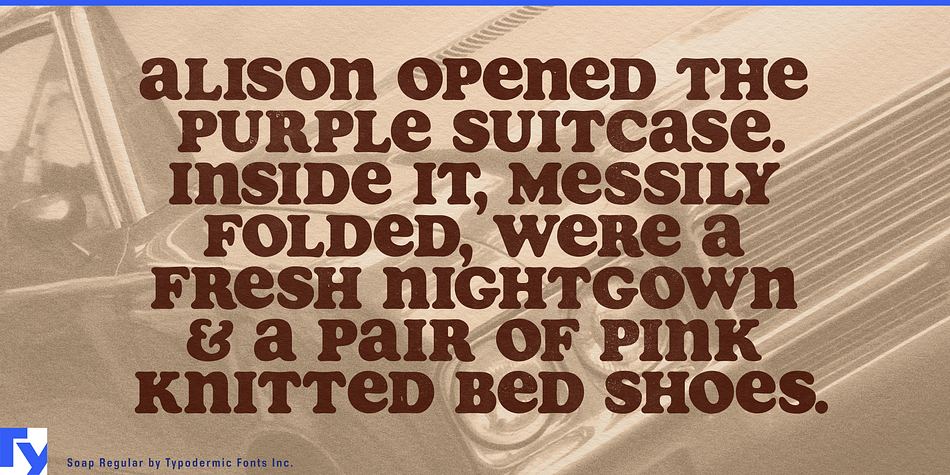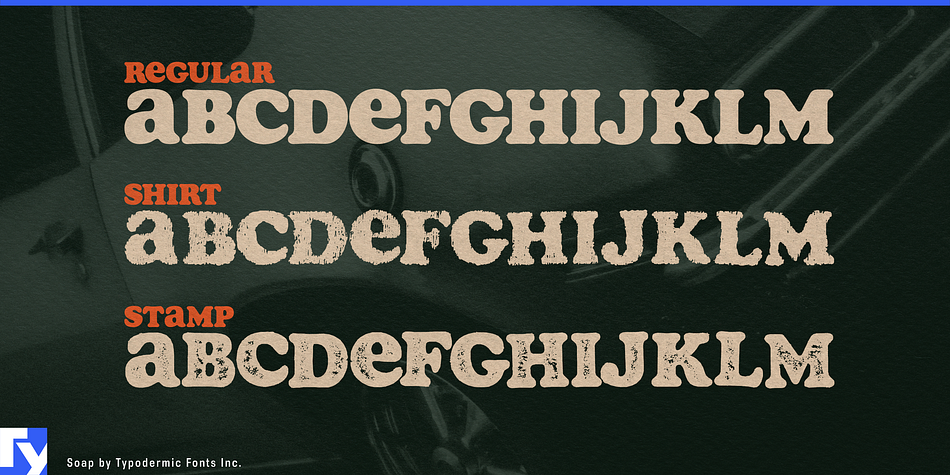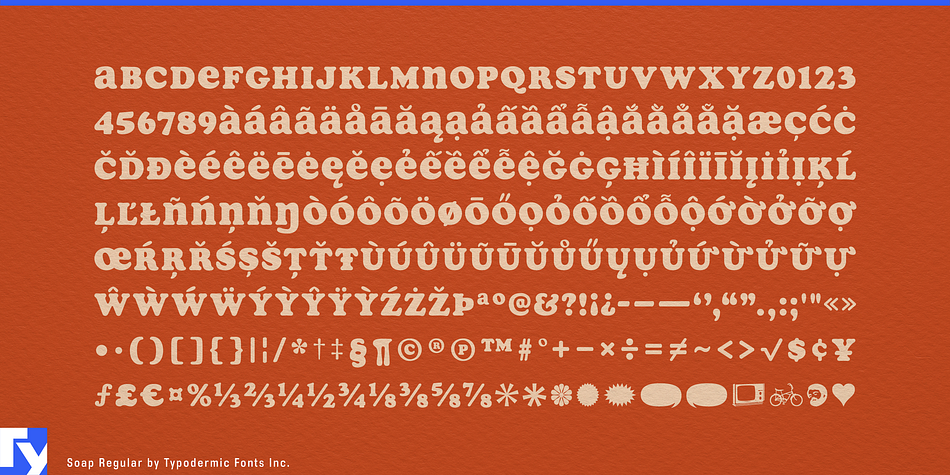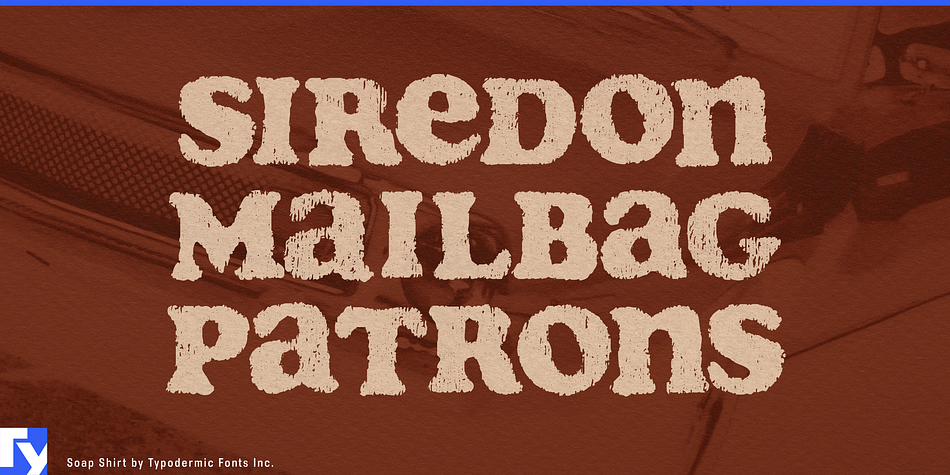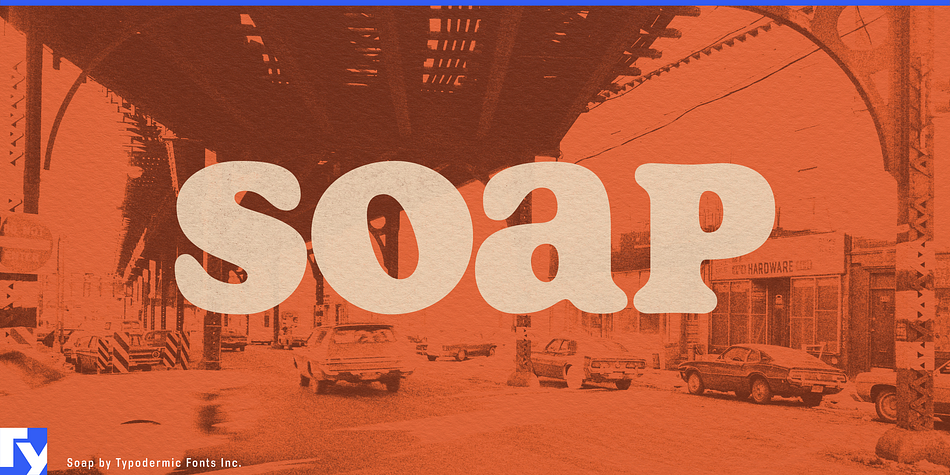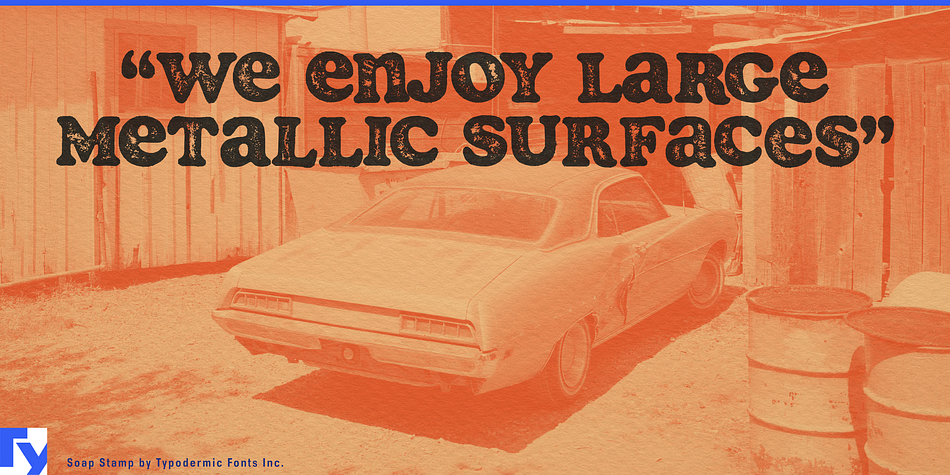
Soap is a grunge and display serif font family. This typeface has three styles and was published by Typodermic Fonts Inc.
Soap is a captivating unicase headliner which looks like Cooper Black but even smoother. It’s spaced really tightly and the bumps have been sanded all the way down. Soap’s numerals align with the capitals and are flanked by ordinals and fractions. In OpenType adept applications, you can get your hands on an alternate lowercase-style T. Even though Soap was designed for headlines, in comes with a profusion of punctuation and mathematical symbols. Soap is available in a clean style as well as two grimy styles: Soap Stamp and Soap Spraypaint. In these particularly nasty transfigurations, common letter pairs are supplanted by straggly variations to help avoid plainly repeating letters.